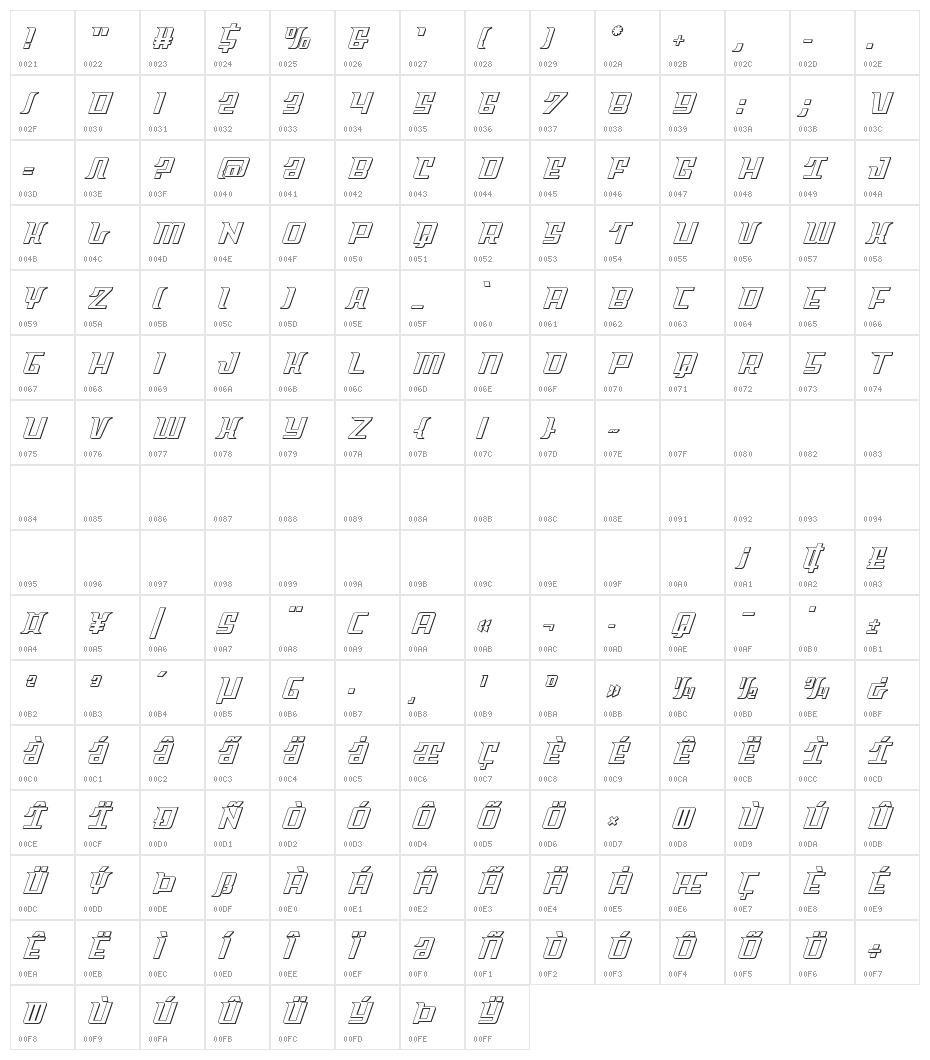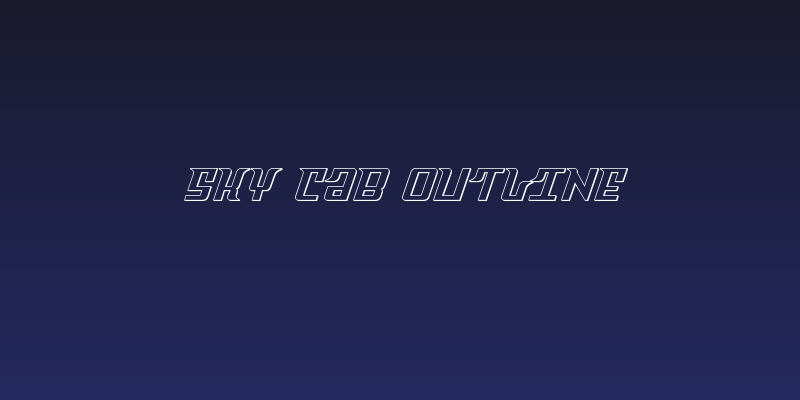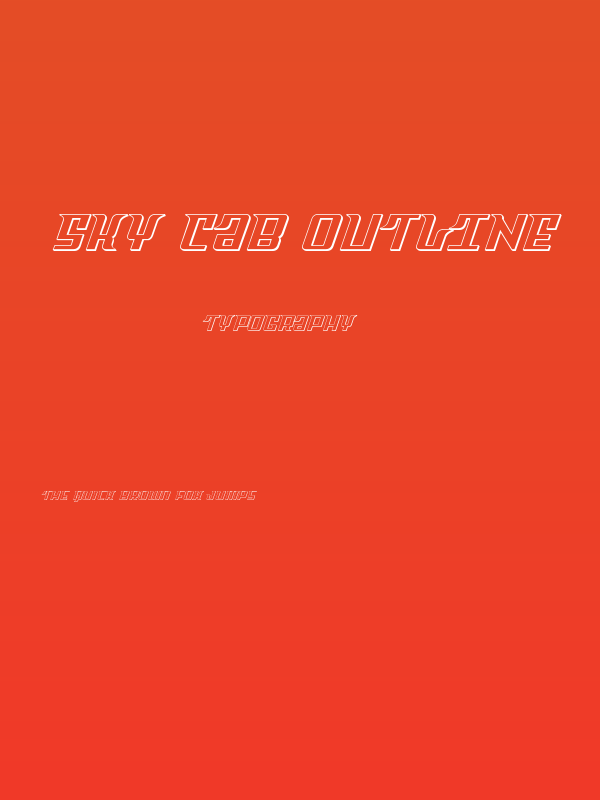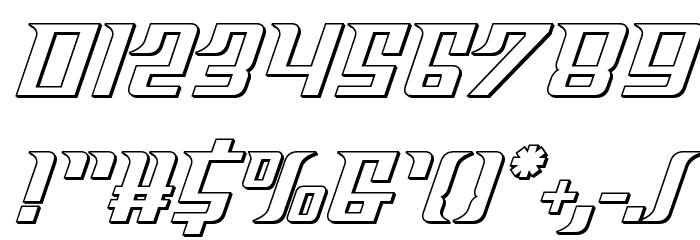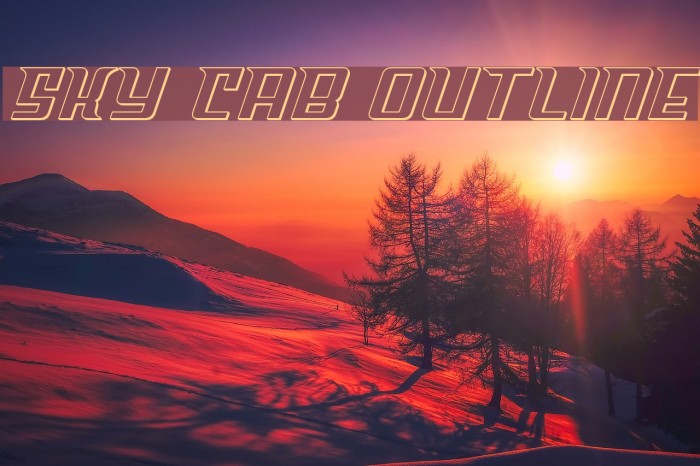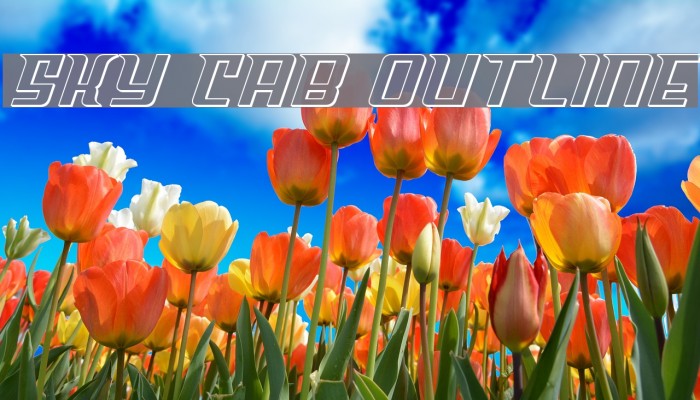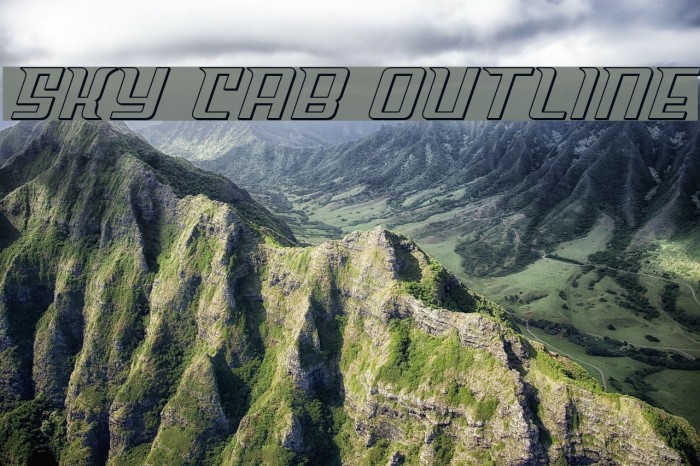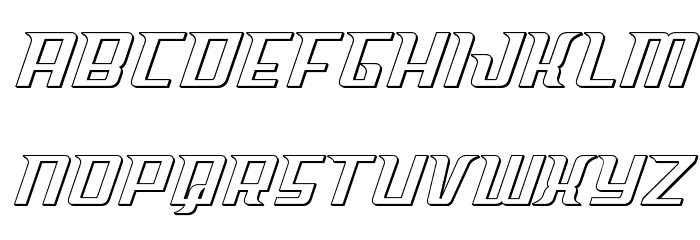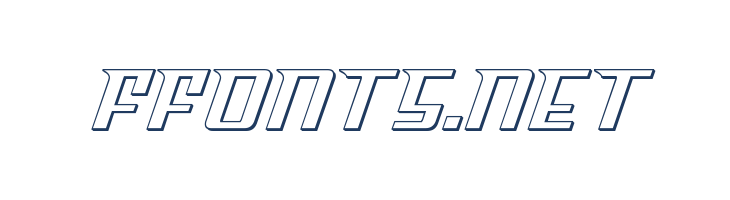
Sky Cab Outline Font
This font features a bold, angular design with an outline style that gives it a futuristic and dynamic appearance. The characters are constructed with sharp edges and geometric shapes, creating a sense of movement and energy. The uppercase and lowercase letters maintain a consistent style, with a slight slant that adds to the forward momentum of the design. The numbers and special characters are equally bold and angular, ensuring a cohesive look across all elements. This font's outline style allows for creative layering and color usage, making it versatile for various design applications.
| Overall Style | Futuristic, Dynamic |
| Proposed Projects | Ideal for sci-fi themed projects, video game titles, posters, and branding that requires a modern and energetic look. |